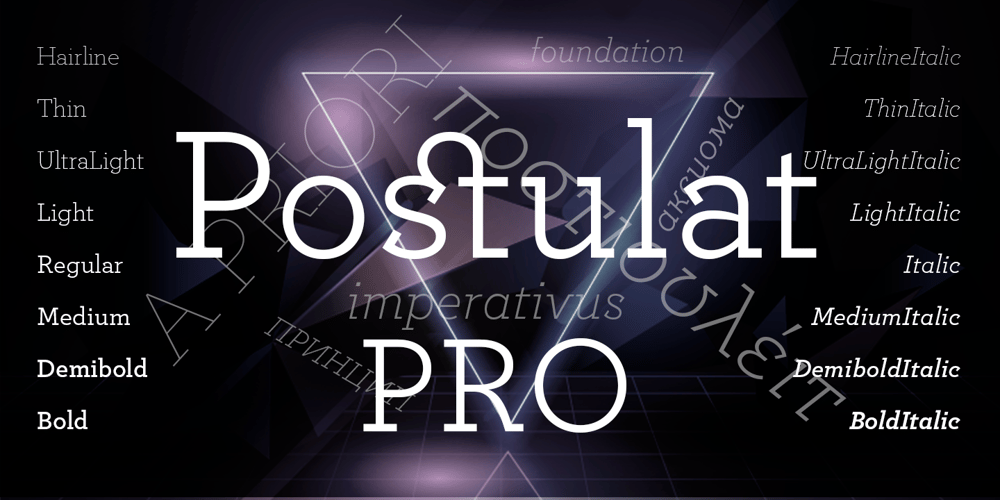
Postulat Pro
Postulat Pro font
Postulat Pro Font Family was designed by Aleksei Chekulaev and published by ParaType. Postulat Pro contains 16 styles and family package options. Postulat Pro is a contemporary slab serif typeface. The family contains 16 fonts: 8 romans with matching italics, from Hairline to Bold. The character set include contains more than 2100 glyphs which support most Latin and Cyrillic languages including Vietnamese, Greek, as well as small caps, stylistic and local alternates, and many other useful characters. The font uses a combination of smooth and extremely simple straight shapes. The author abandoned the use of teardrop-shaped classical elements, replacing them with straight ones, which makes Postulat Pro more dynamic and modern. These unique features give the font a unique personality. Postulat Pro is the perfect choice for headlines, logos, branding, packaging, publications and websites. The typeface was designed 2021 by Alexey Chekulaev.